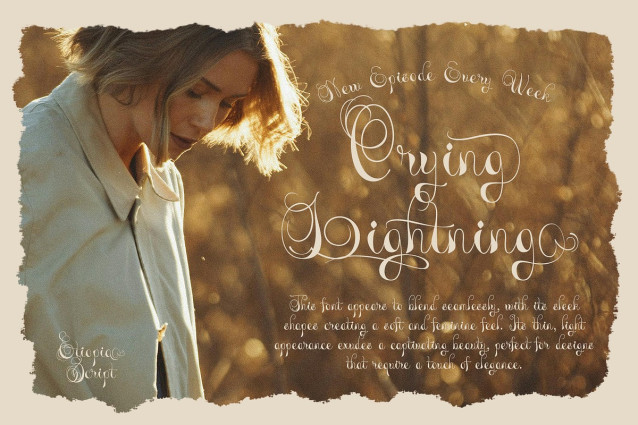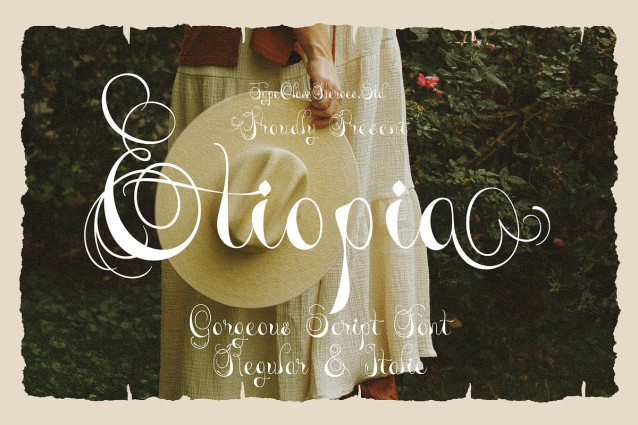
Etiopia Font
Etiopia Font this font appears to blend seamlessly, with its sleek shapes creating a soft and feminine feel. Its thin, light appearance exudes a captivating beauty, perfect for designs that require a touch of elegance, high-end branding, book covers, or high class invitations, particularly for classic or heritage brands.